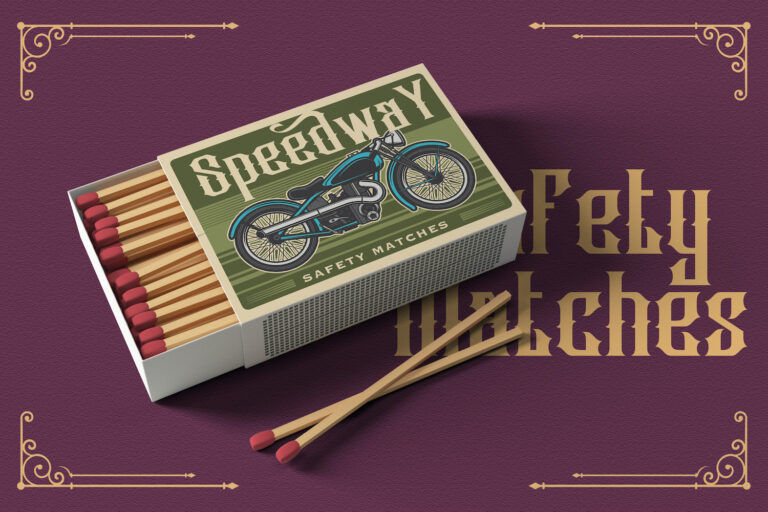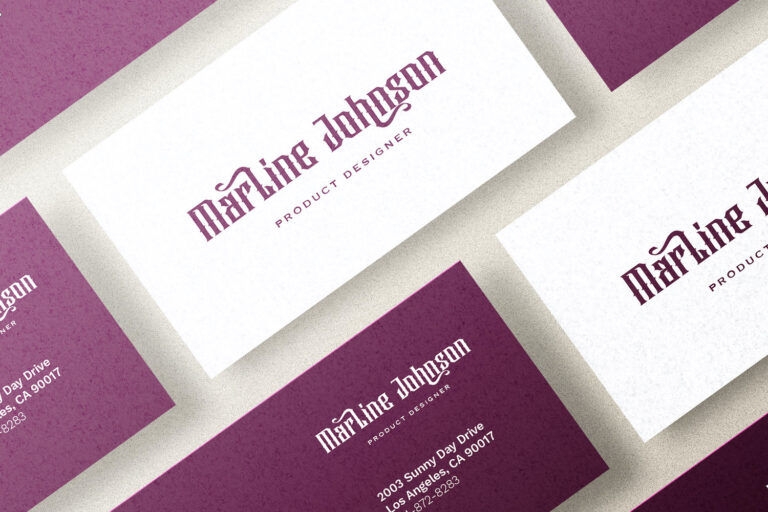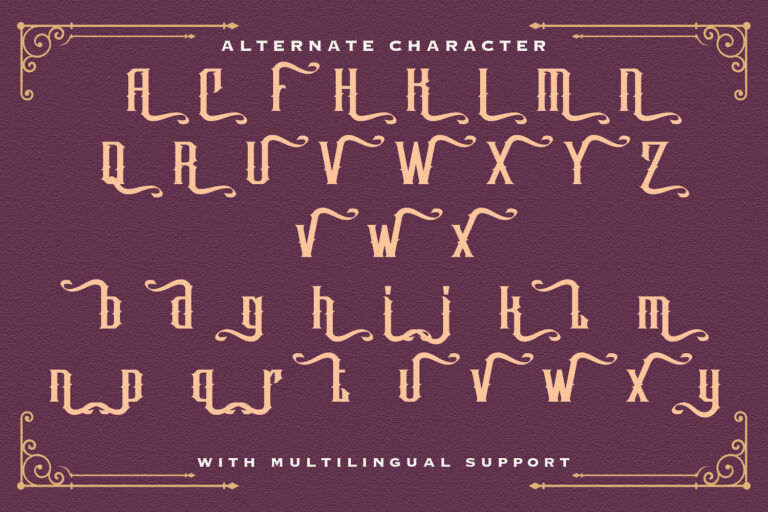
The Ambrosia Blackletter Font is a bold, theatrical typeface that channels the essence of medieval Gothic lettering with a modern decorative twist. Its sharp vertical strokes and precise angular cuts are balanced by fluid, ornate swashes that add elegance and drama to each composition. The contrast between rigid structure and flowing flourishes gives Ambrosia a distinctive, ceremonial tone—perfect for branding that seeks to convey strength, prestige, and tradition.
Ambrosia works especially well in display settings where it can command attention: think vintage automotive posters, classic beverage labels, fantasy book covers, or tattoo-inspired merchandise. The font's OpenType alternates and stylistic ligatures introduce creative flexibility, making it ideal for custom logos or gothic-style headlines that demand visual impact. Though highly stylized, Ambrosia remains readable at larger sizes, which makes it a powerful choice for titles, album art, or even theatrical event branding.